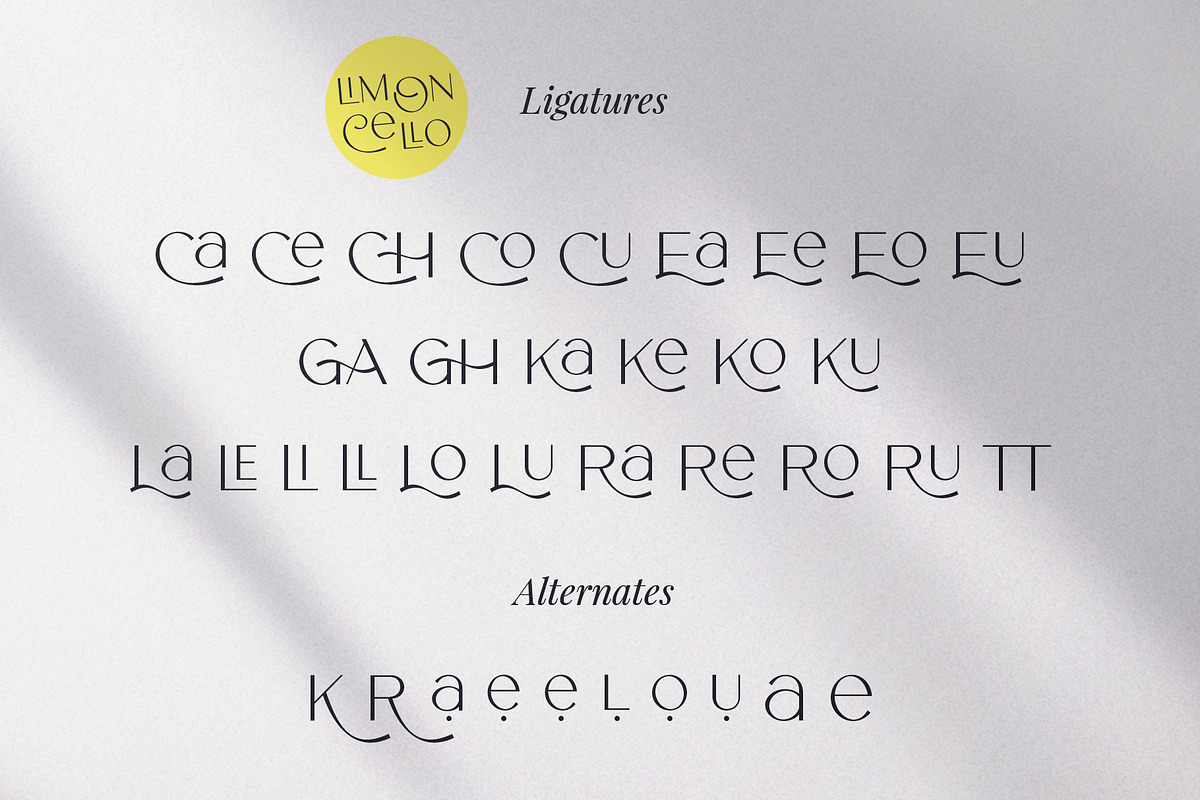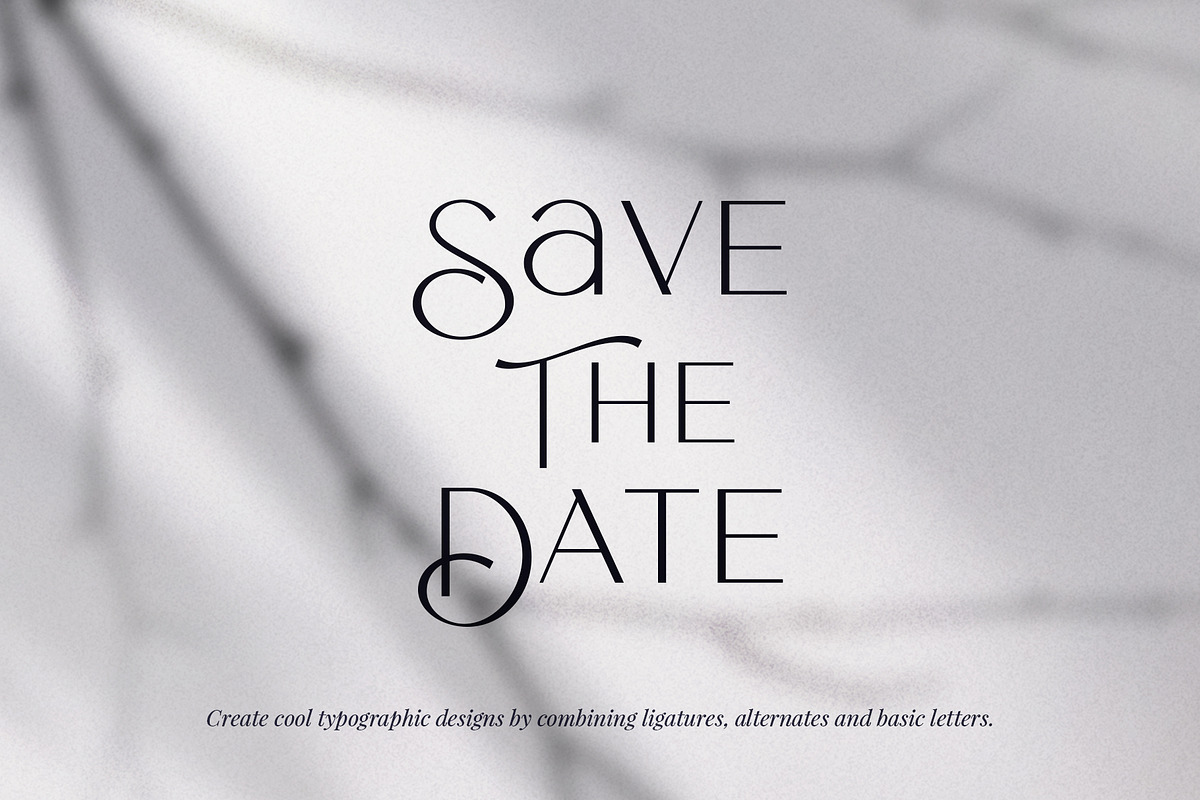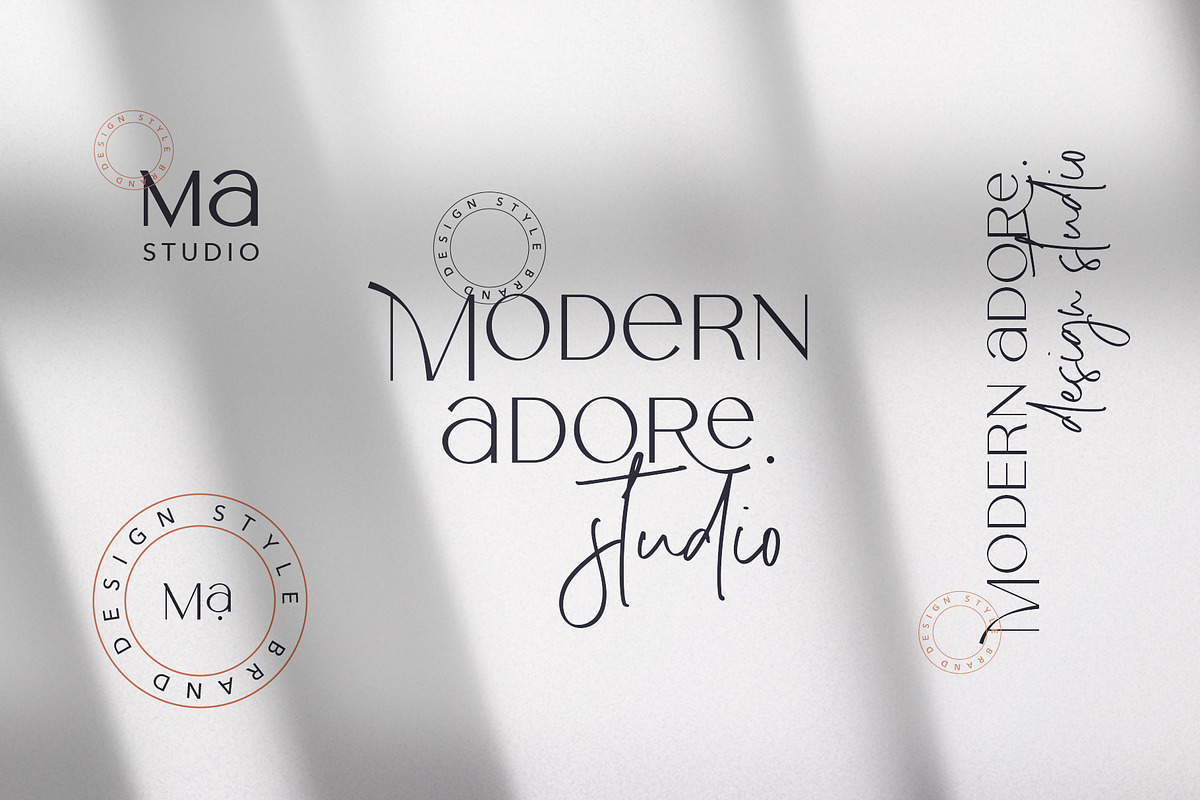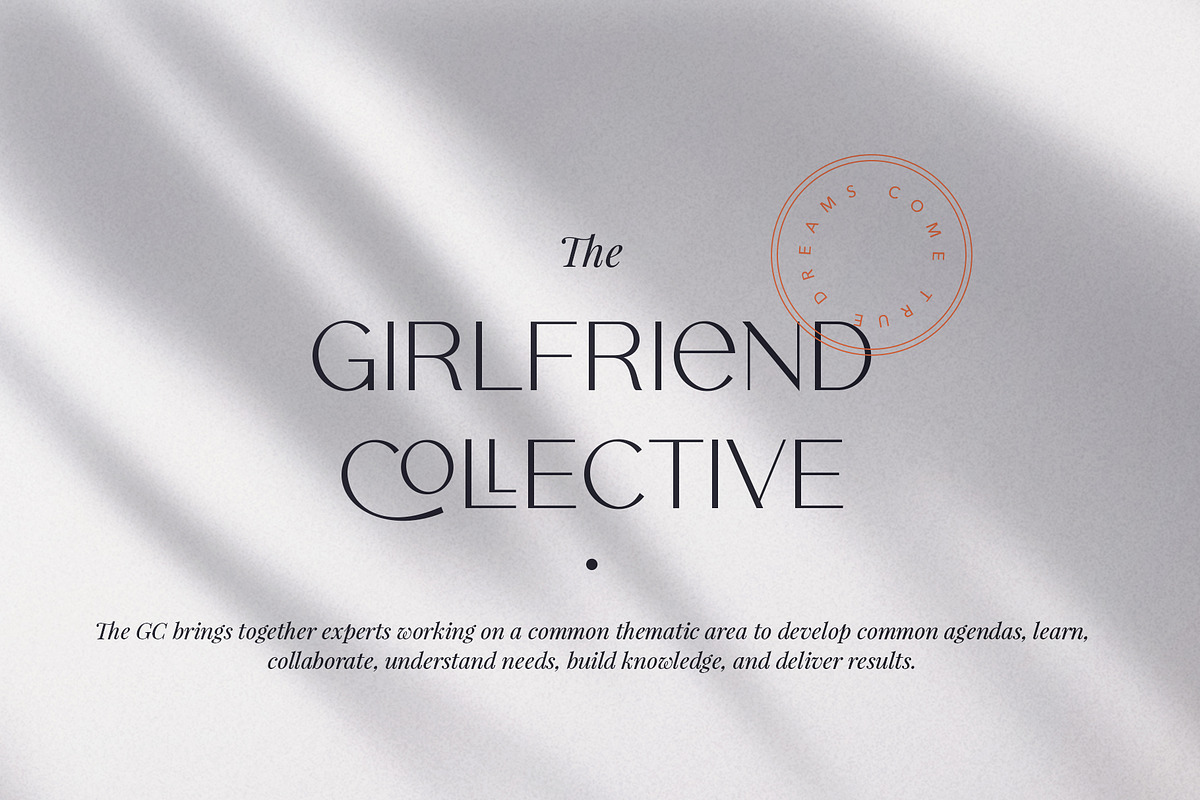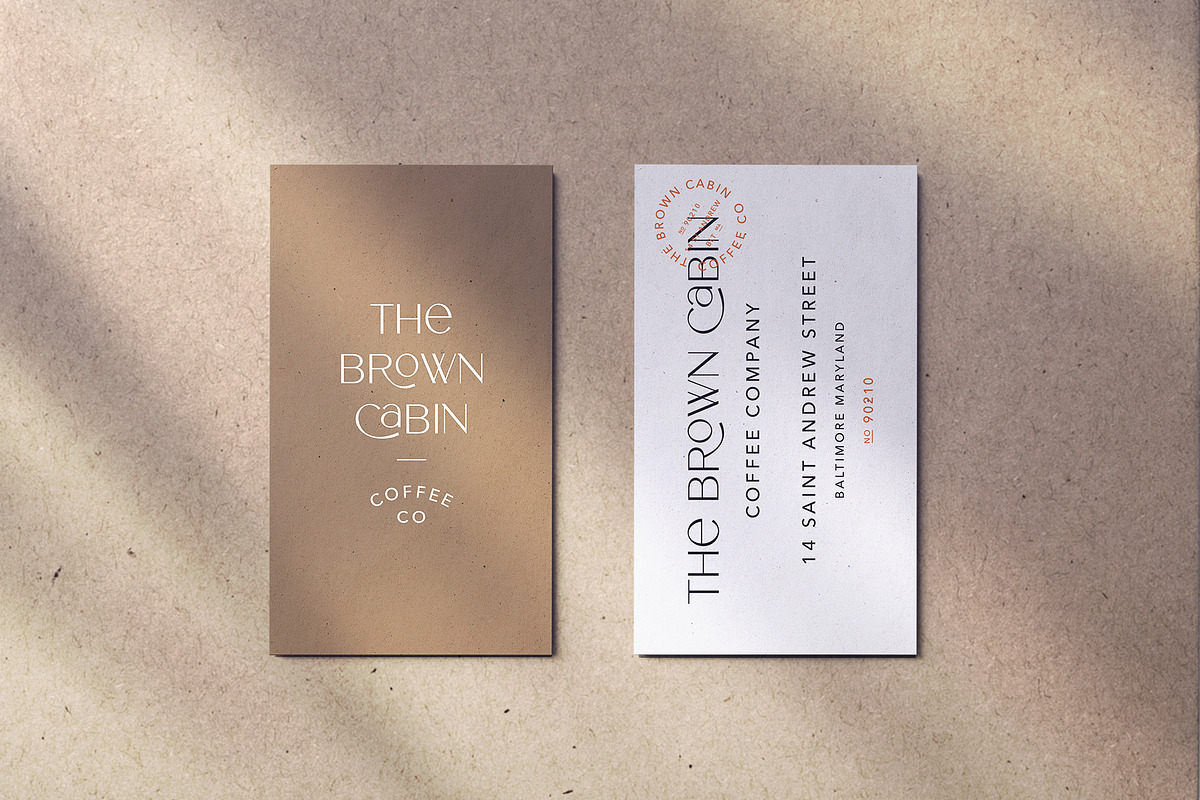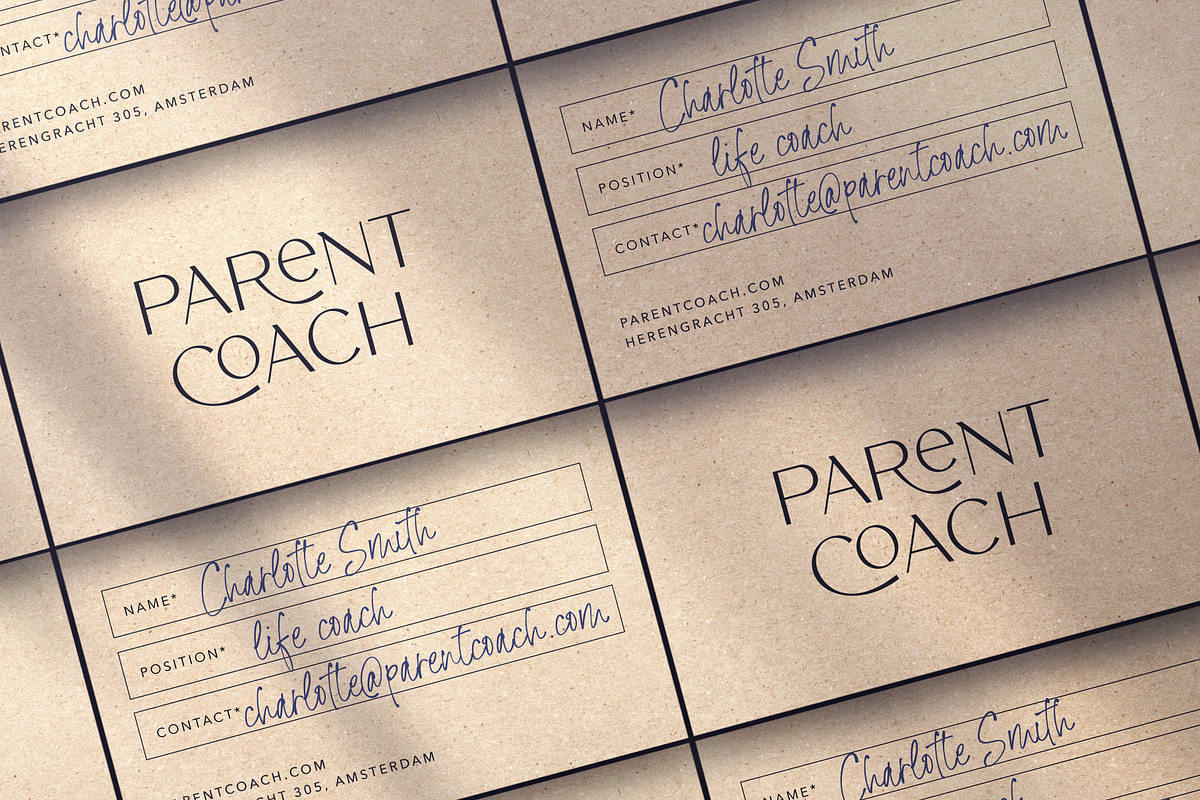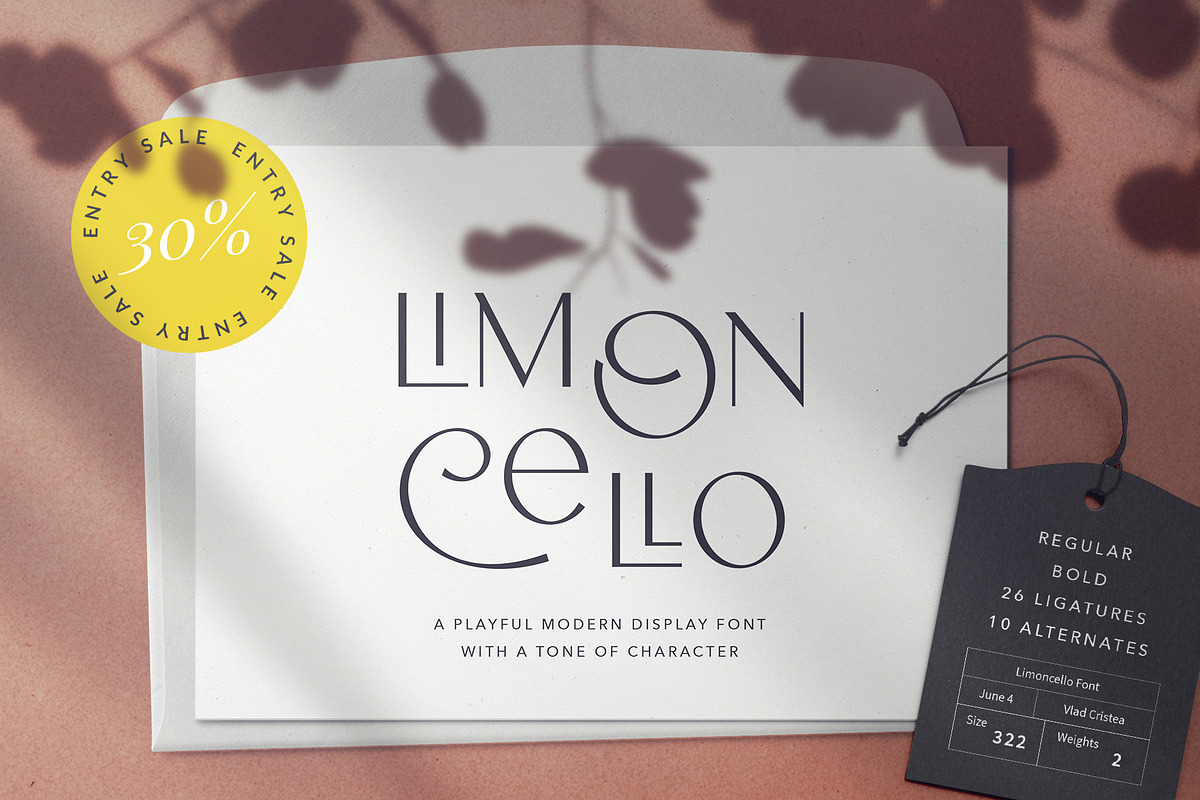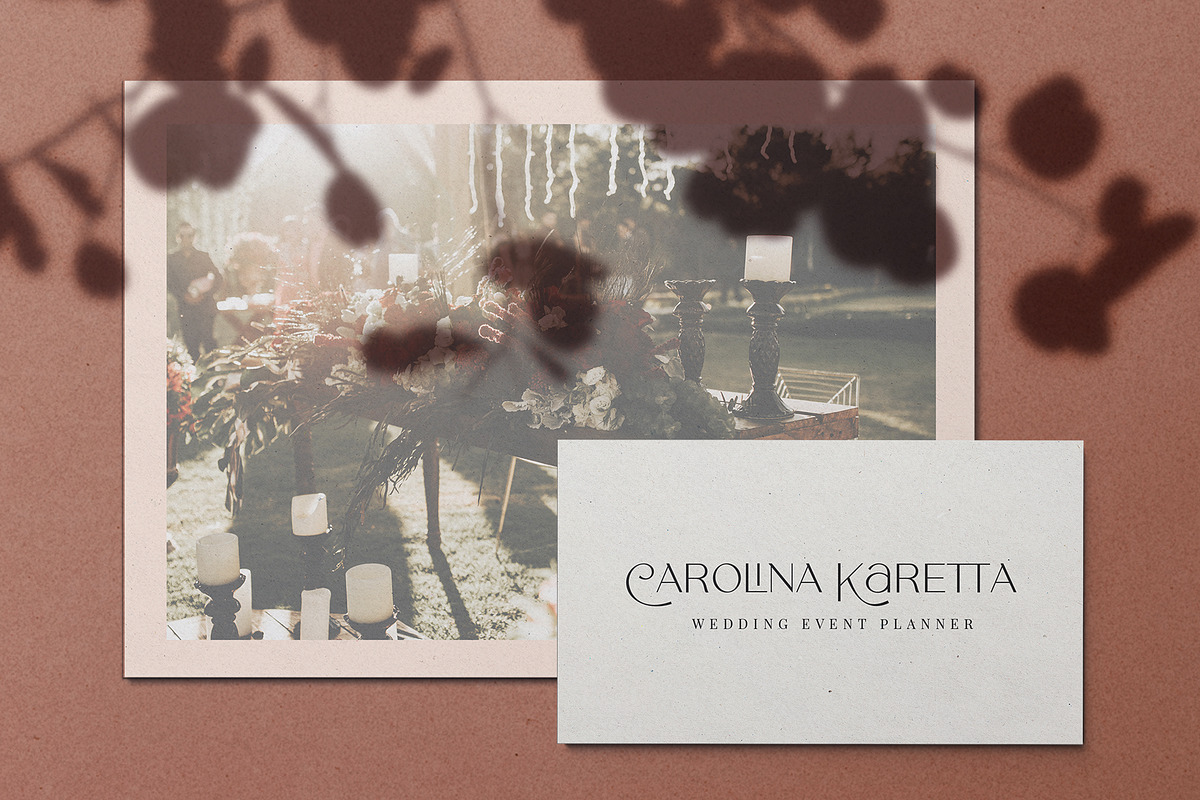
Limoncello Playful Font
Say hello to Limoncello Playful Font, a display font full of character. What make Limoncello unique and to stand out are the "twirly" capitals and those funky 26 ligatures. All the vowels have an alternate, so you can change them and make your texts unique.
Limoncello comes with upper and lowercase Basic Characters, Numbers, Marks and Punctuation. Diacritics are also available for Western and Central European Languages.